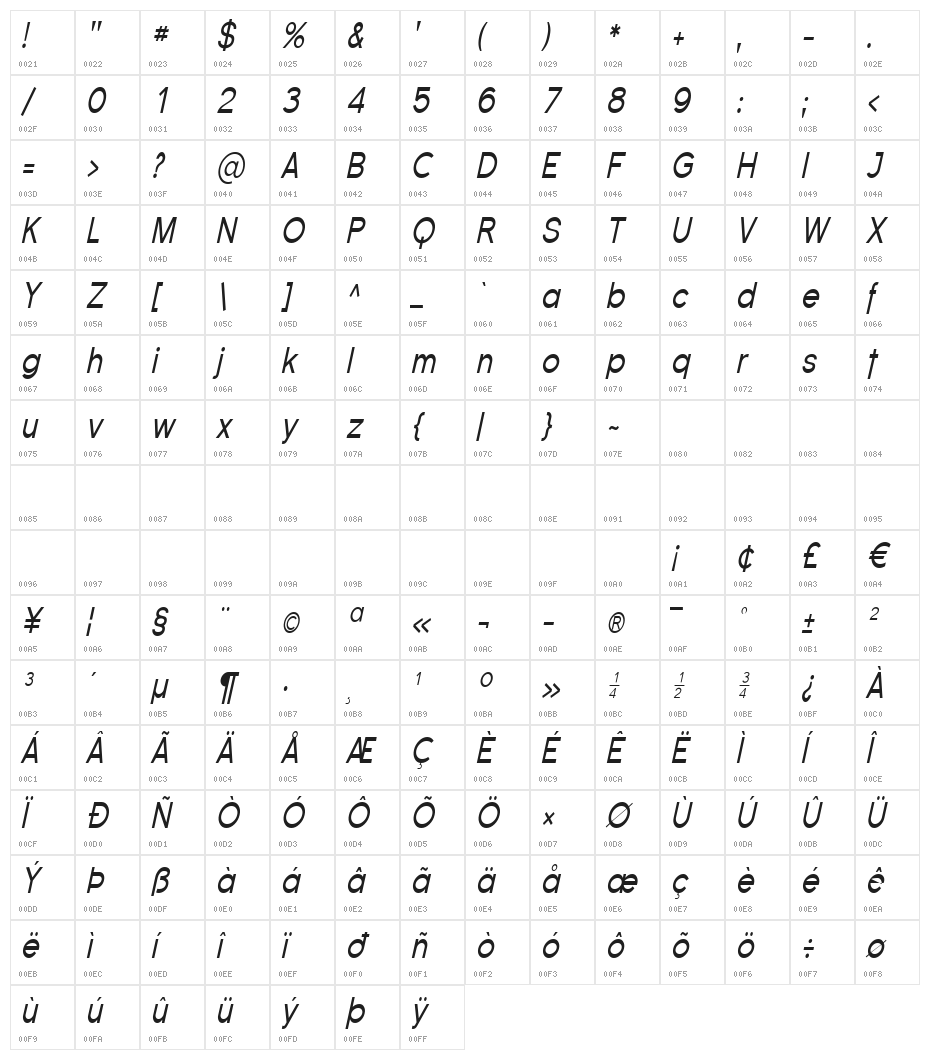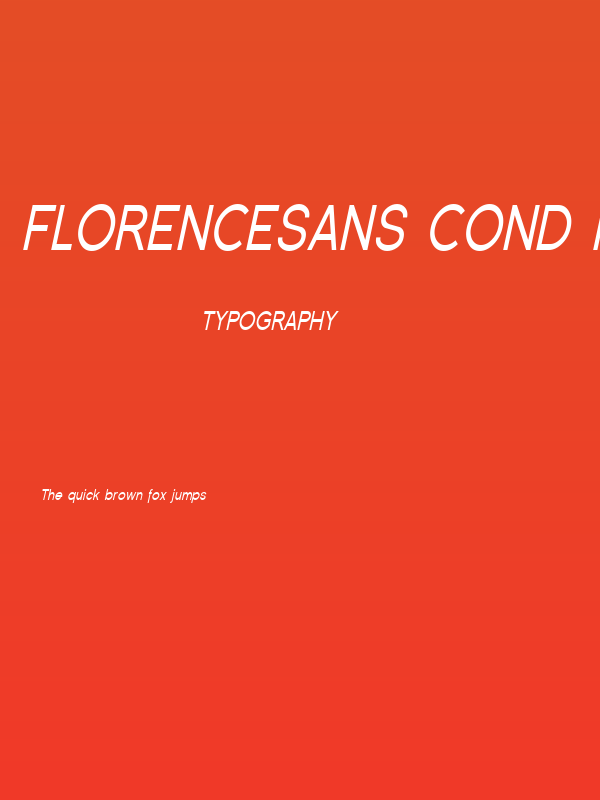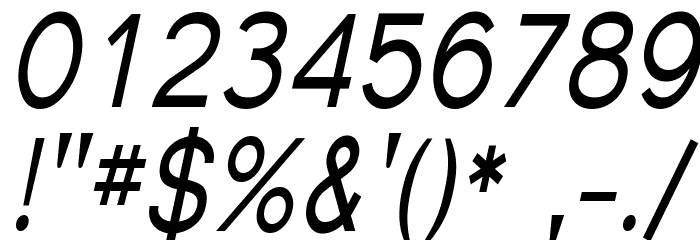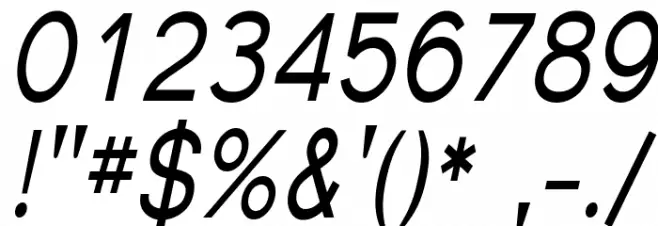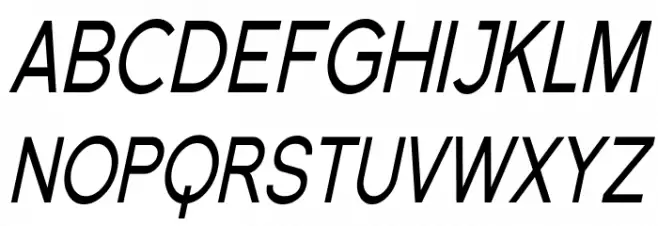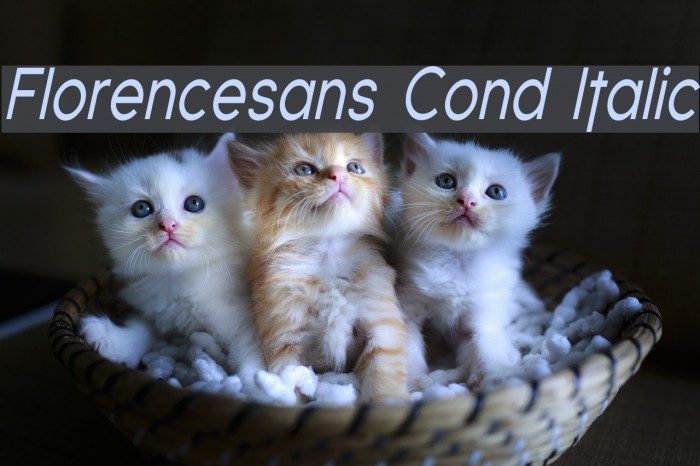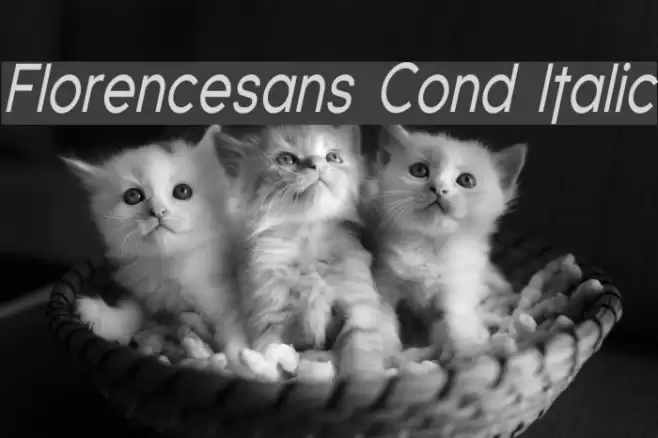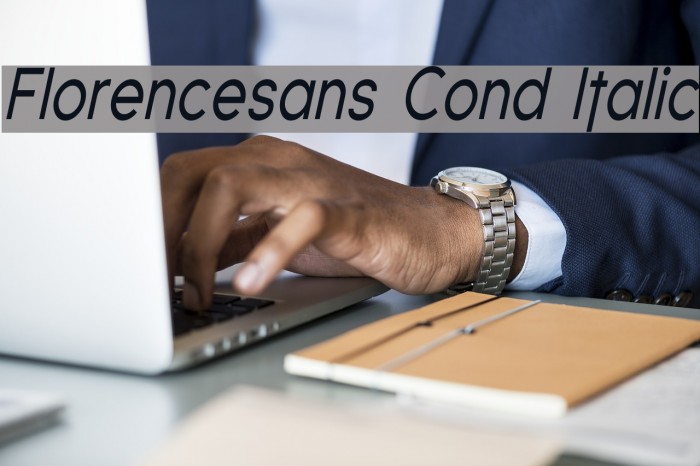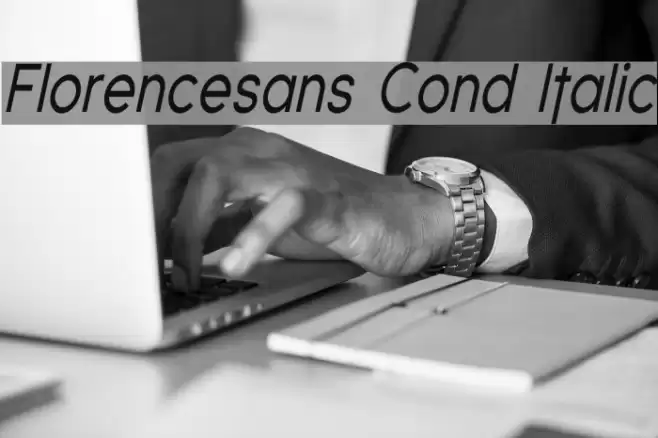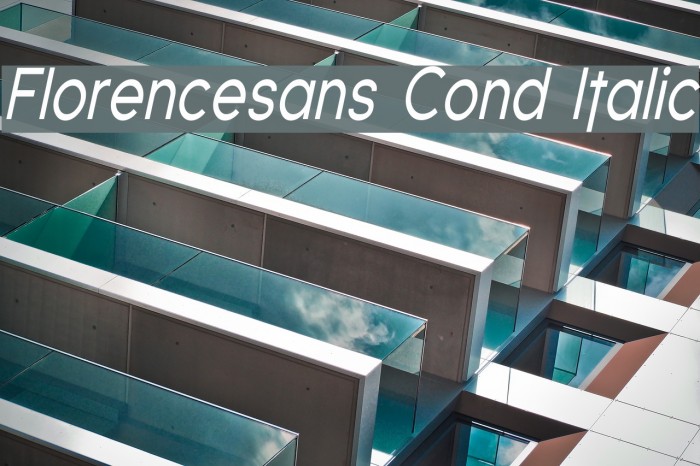
Florencesans Cond Italic Font
Florencesans Cond Italic Description
This font exhibits a sleek and modern sans-serif style with a condensed and italicized form. The characters are uniformly slanted, providing a dynamic and forward-moving appearance. The strokes are clean and consistent, with a medium contrast that enhances readability while maintaining a stylish look. The overall design is minimalistic, making it suitable for contemporary applications. The numerals and special characters are well-integrated, maintaining the font's cohesive aesthetic.
| Use Case | Headlines, Logos, Digital interfaces |
| Proposed Projects | Ideal for branding, advertising, and editorial design where a modern and sleek appearance is desired. Suitable for use in digital interfaces, signage, and packaging. |